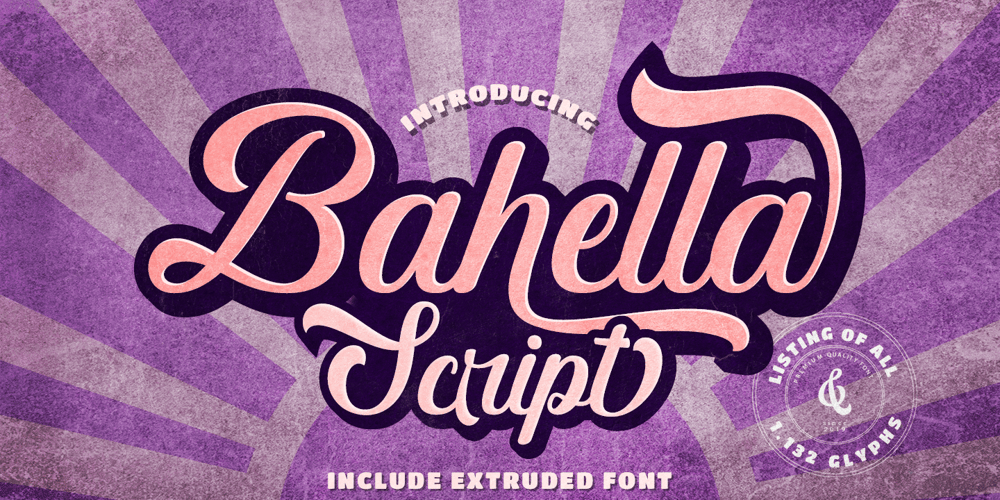
Bahella Script Font Family was designed by Muhamad Junaid and published by Juncreative. Bahella Script contains 2 styles and family package options. Introducing Bahella Script, a bold and vintage-inspired script font that evokes a sense of nostalgia. This typeface is well-suited for a wide range of design projects, such as creating logos and logotypes, designing t-shirts, vintage badges, and retro quotes, as well as branding, packaging, and poster design. Additionally, Bahella Script is PUA encoded, providing easy access to all of its glyphs and ligatures, making it a convenient choice for designers looking to add a touch of vintage elegance to their work.FEATURESAlternate CharactersUppercase and Lowercase lettersNumbering and PunctuationsMultilingual SupportWorks on PC or MacSimple InstallationSupport Adobe Illustrator, Adobe Photoshop, Adobe InDesign, also works on Microsoft Word